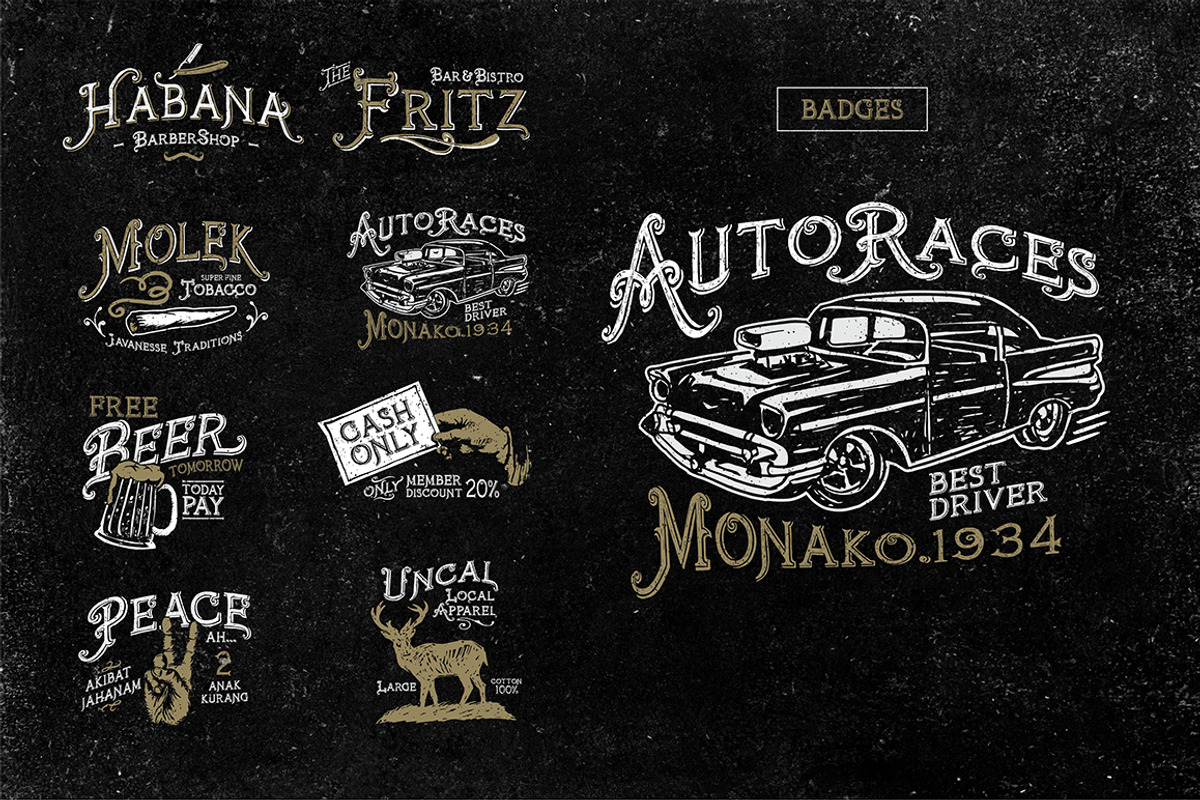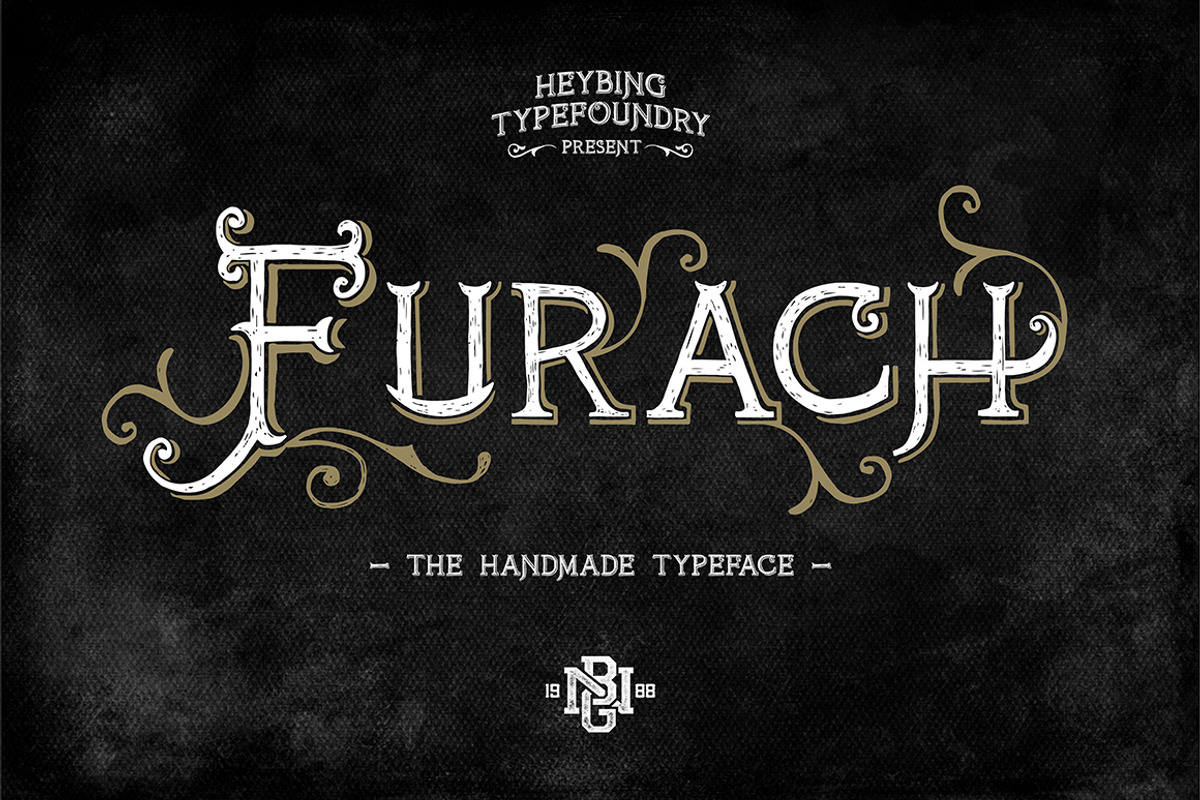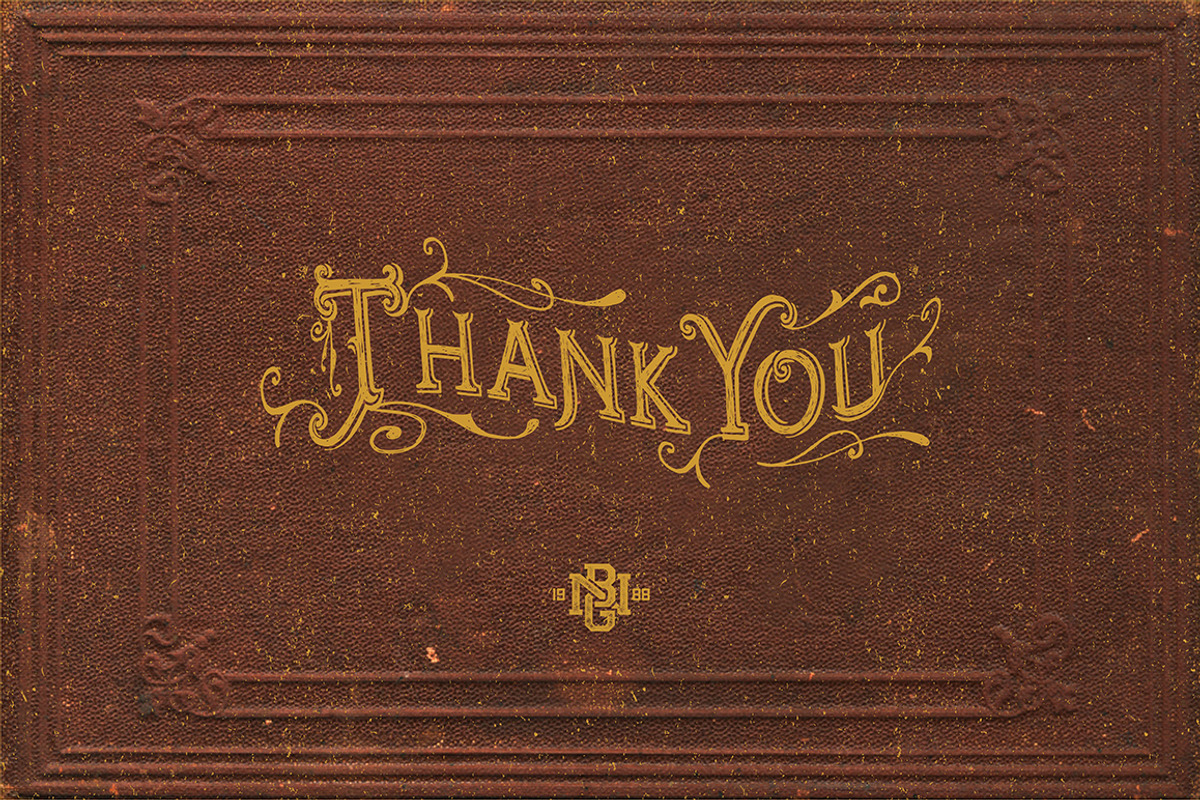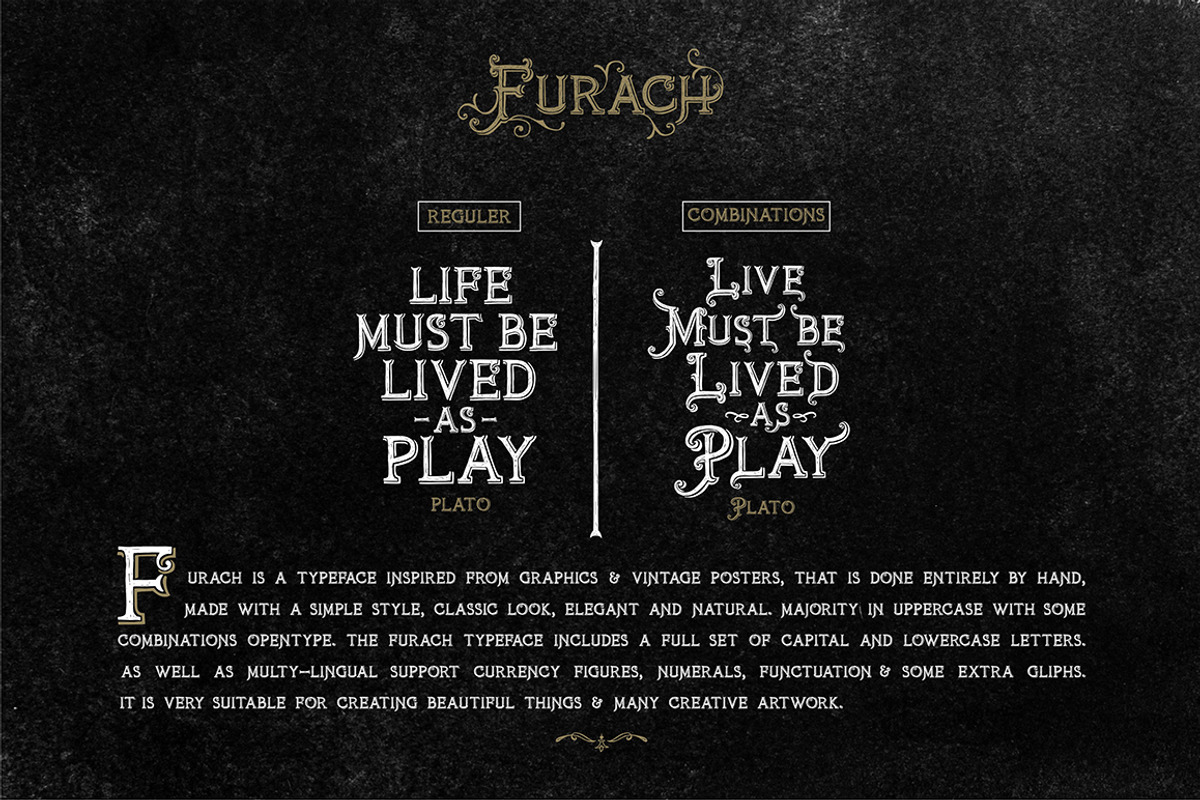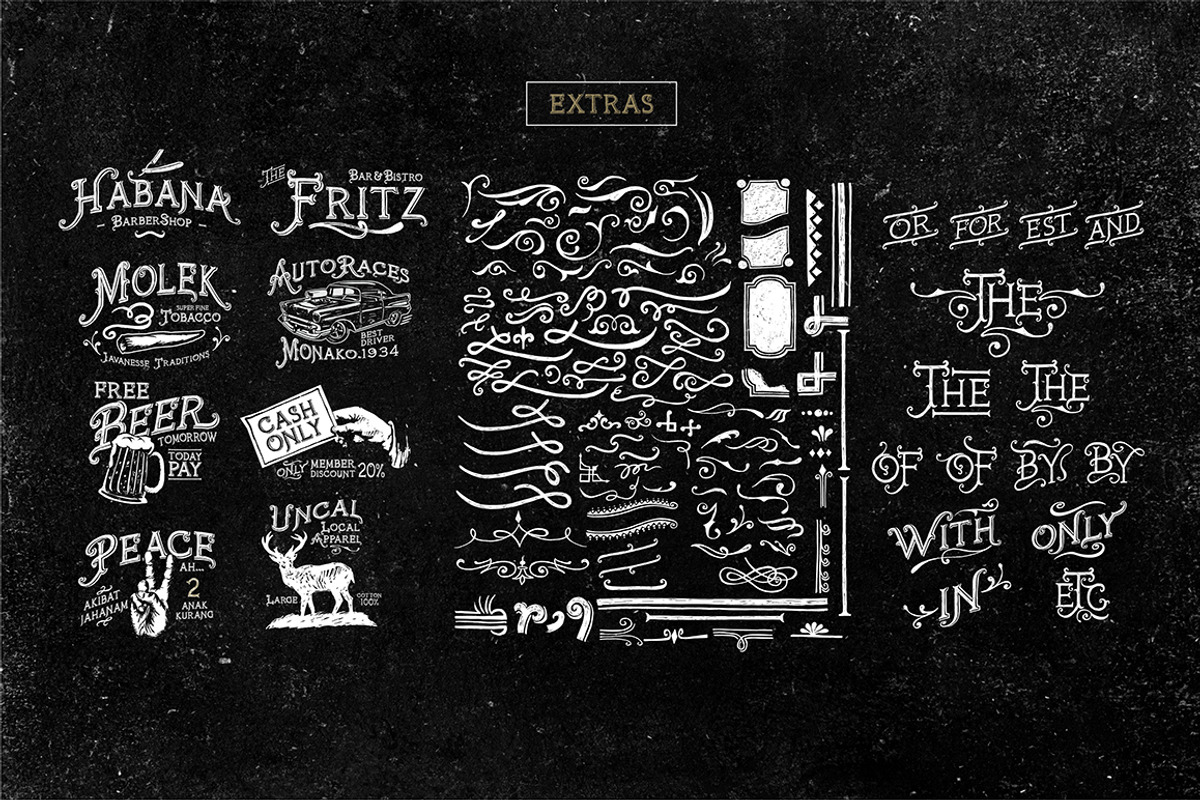
Furach Typeface + Bonus
Furach is a typeface inspired from graphics and vintage posters, that is done entirely by hand, made with a simple style, classic look, elegant and natural. majority in uppercase with some combinations opentype. the furach typeface includes a full set of capital and lowercase letters as well as multy-lingual support currency figures, numerals, functuation and some extra gliphs.
Furach typeface is suitable font for creating beautiful things and many creative work.